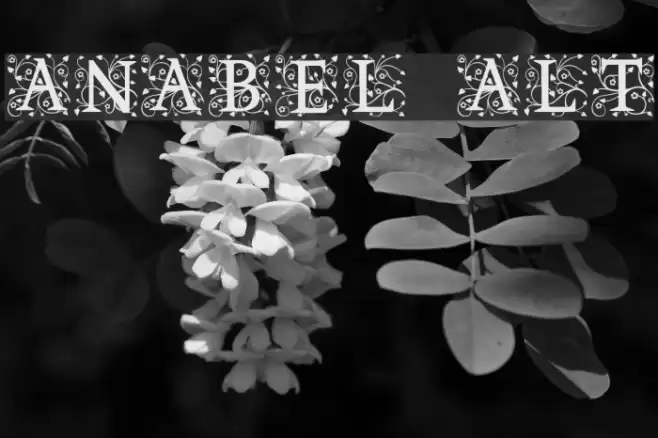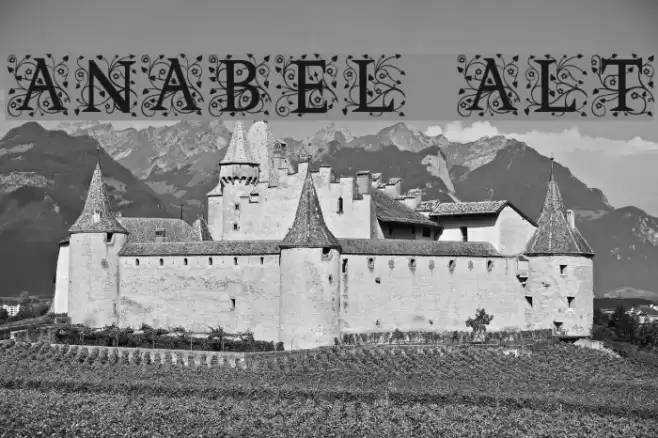
Anabel Alt Font
Anabel Alt Description
This font is a highly decorative and ornate typeface, featuring intricate floral and vine-like embellishments that surround each character. The uppercase letters are bold and prominent, with a classic serif structure that is enhanced by the elaborate detailing. The design is reminiscent of vintage or Victorian styles, making it ideal for projects that require a touch of elegance and sophistication. The embellishments add a sense of movement and fluidity, creating a dynamic visual impact. This font is best suited for display purposes where its intricate details can be appreciated.
An ornate and decorative serif font with intricate floral embellishments from Uncategorized fonts.
- Proposed Projects: Ideal for wedding invitations, luxury branding, vintage-themed posters, and decorative headlines.
- Overall Style: Vintage